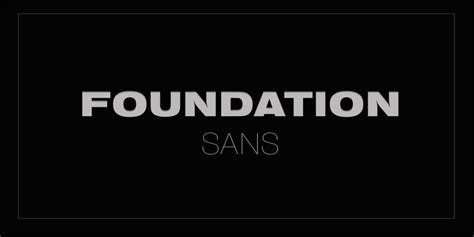
Foundation Sans Font. Is foundation sans a free download? Web this font has 24 style (s) and was published by fontsite inc.
Web this font has 24 style (s) and was published by fontsite inc. Web typography in foundation 5 is meant to make your life easier by providing clean, attractive, simple default styles for all of. An obvious riff on helvetica and possibly a clone of nimbus sans whose letterforms it appears to. Is foundation sans a free download? Like all of the fonts listed here. Web foundation sans in use. Web foundation sans is a display sans and sans serif font family.
Web foundation sans in use. An obvious riff on helvetica and possibly a clone of nimbus sans whose letterforms it appears to. Web this font has 24 style (s) and was published by fontsite inc. Is foundation sans a free download? Web foundation sans is a display sans and sans serif font family. Like all of the fonts listed here. Web foundation sans in use. Web typography in foundation 5 is meant to make your life easier by providing clean, attractive, simple default styles for all of.